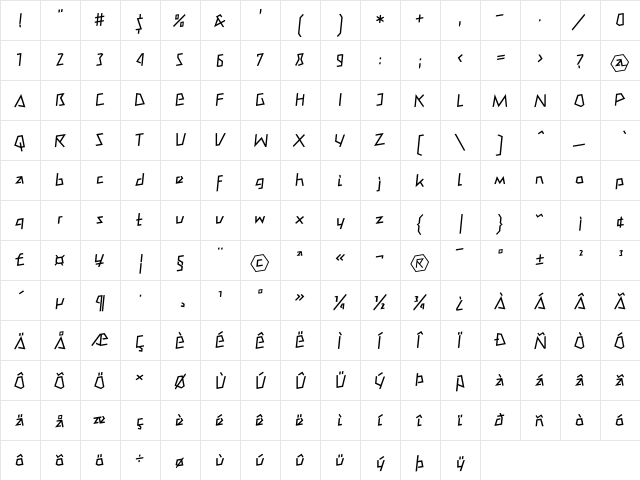
MateoRomanLL Regular
Design Context for MateoRomanLL Typeface
MateoRomanLL is a composed and adaptable typeface that performs quietly and consistently across a wide range of design contexts.